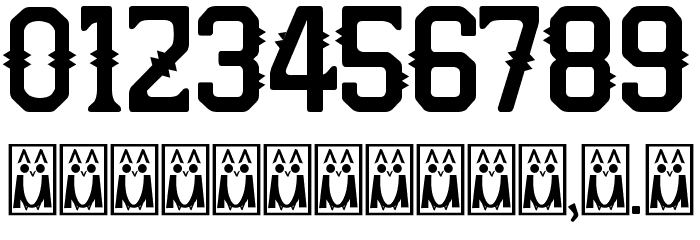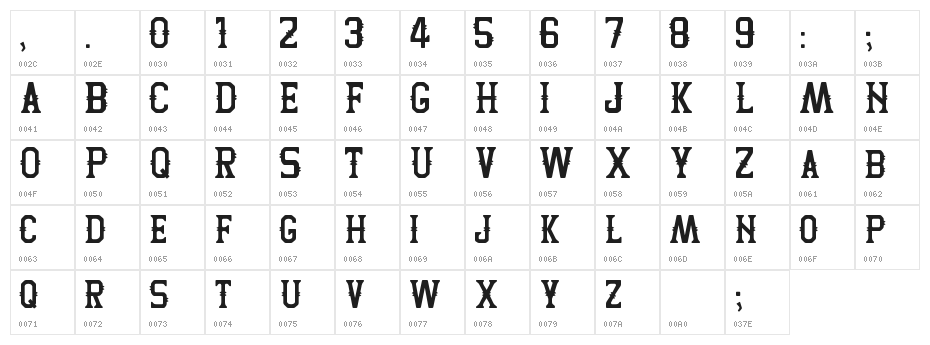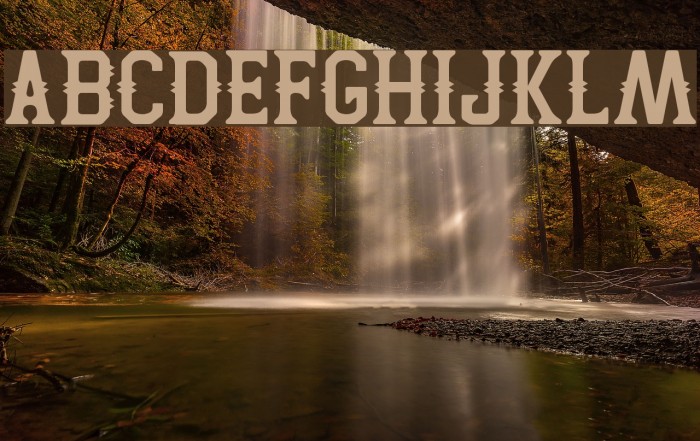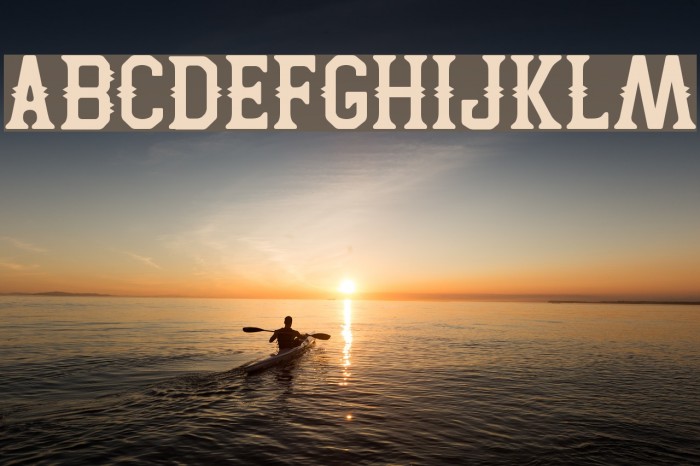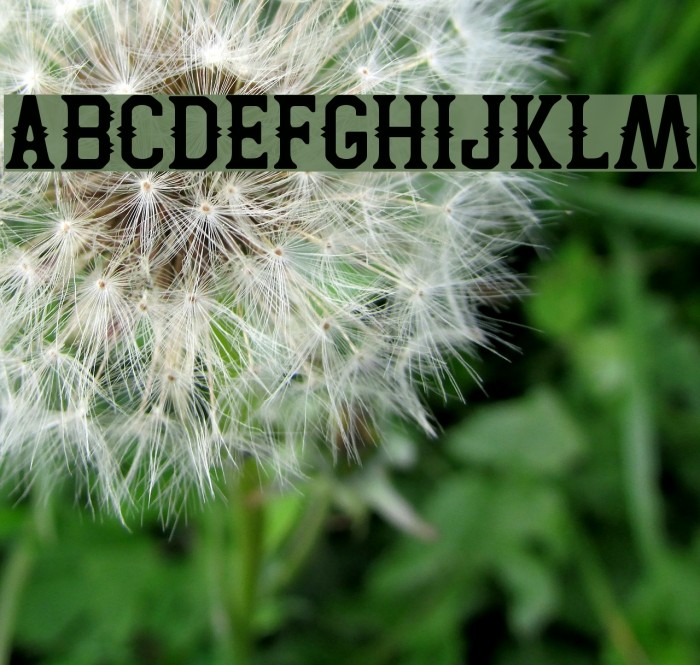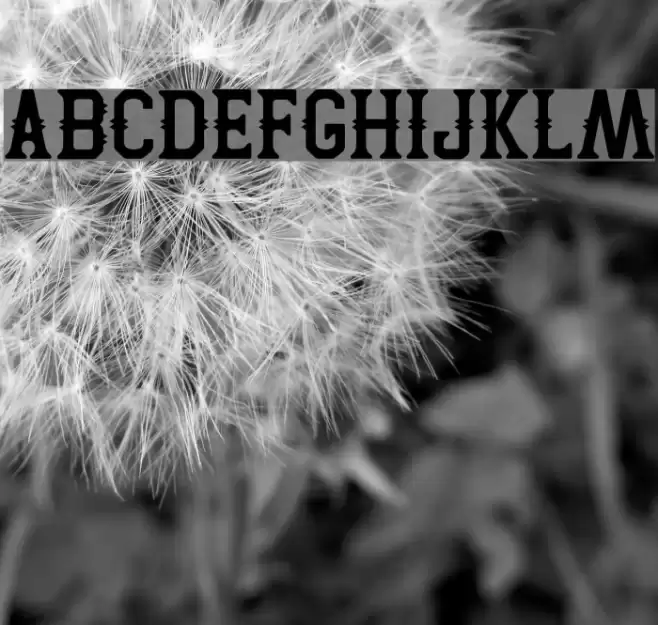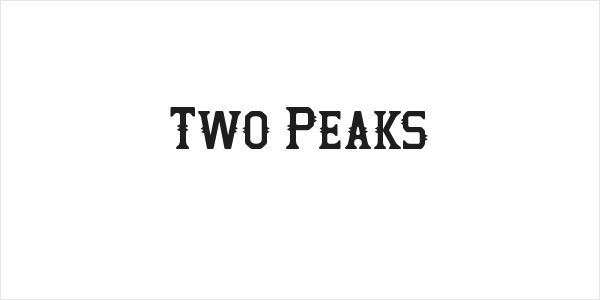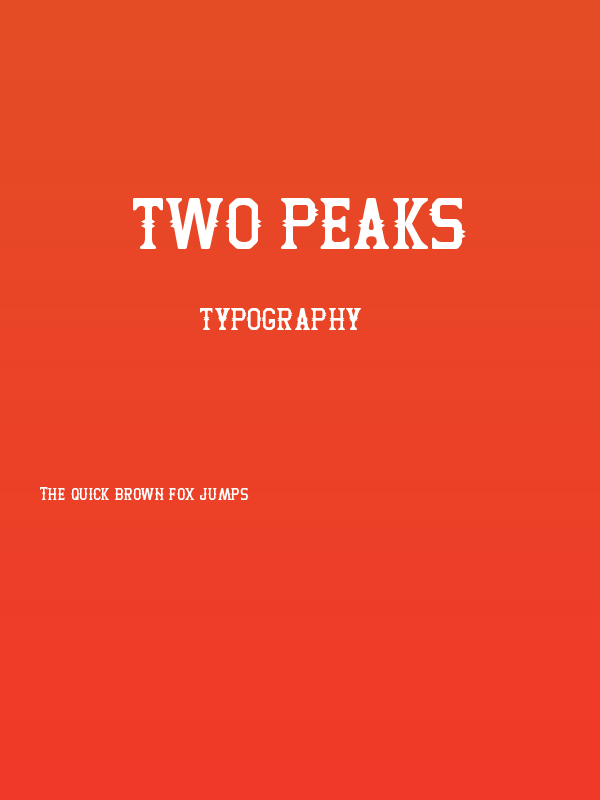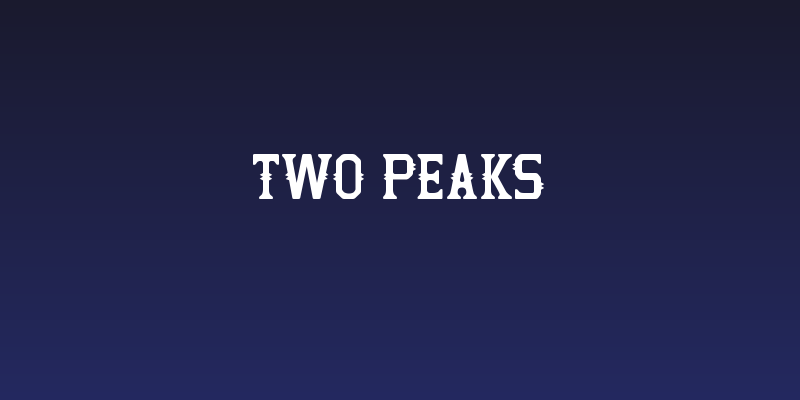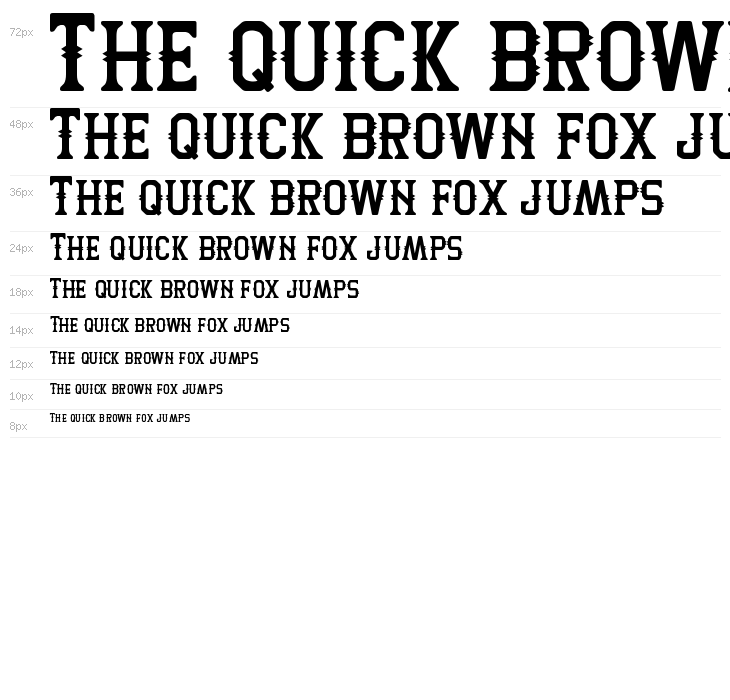
Two Peaks Font
Two Peaks Description
This font features a bold and striking design with sharp, angular edges and unique cut-out details that create a sense of movement and energy. The uppercase letters are particularly distinctive, with each character incorporating a symmetrical, jagged motif that resembles peaks or spikes. The numbers and special characters maintain this dynamic style, ensuring consistency across all elements. The font's boldness and decorative nature make it ideal for attention-grabbing headlines or logos that require a strong visual impact.
| Proposed Projects | Ideal for branding, poster design, and any project requiring a bold, eye-catching typeface. |